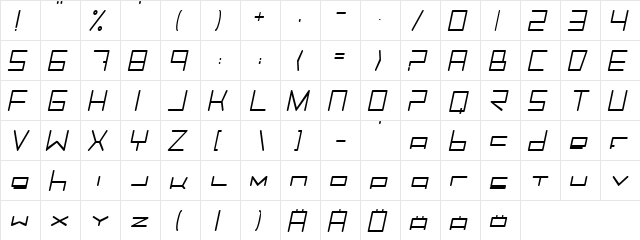
Trancemission MediumItalic Font Preview
Trancemission MediumItalic
Trancemission MediumItalic Font Details
Design Context for Trancemission Typeface
Trancemission takes a measured approach to typography — its balanced proportions and neutral character make it a reliable workhorse for both digital and print work. Its italic angle brings a sense of urgency and motion to the letterforms.
Pro Tip: Use Trancemission for emphasis, pull quotes, and subheadings where its slanted energy can add rhythm to the layout.